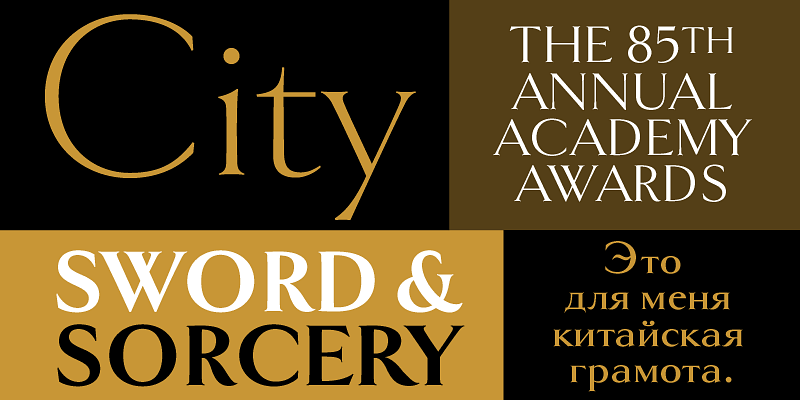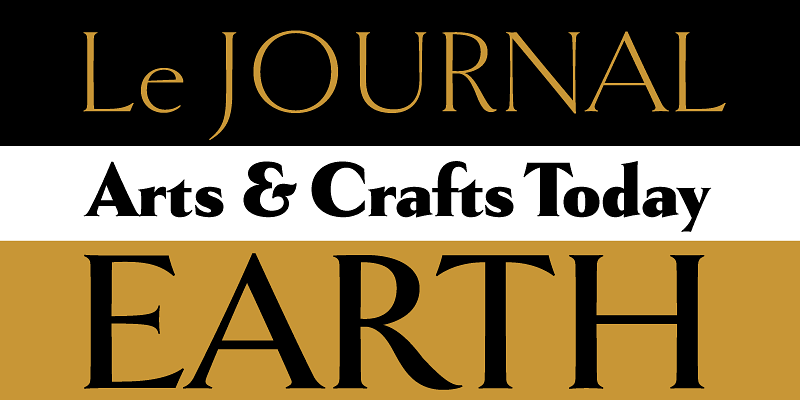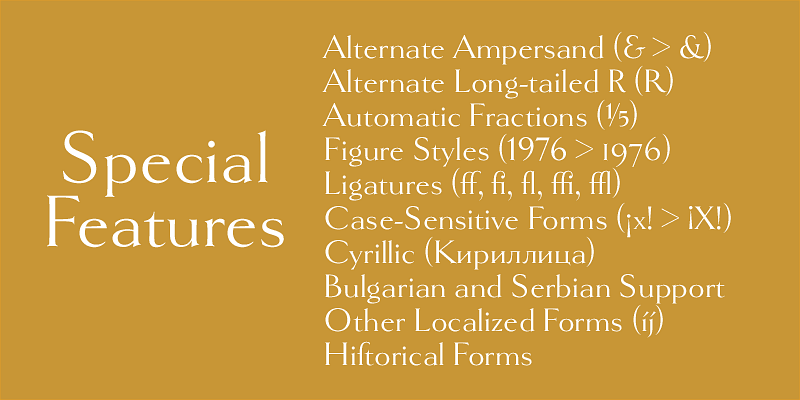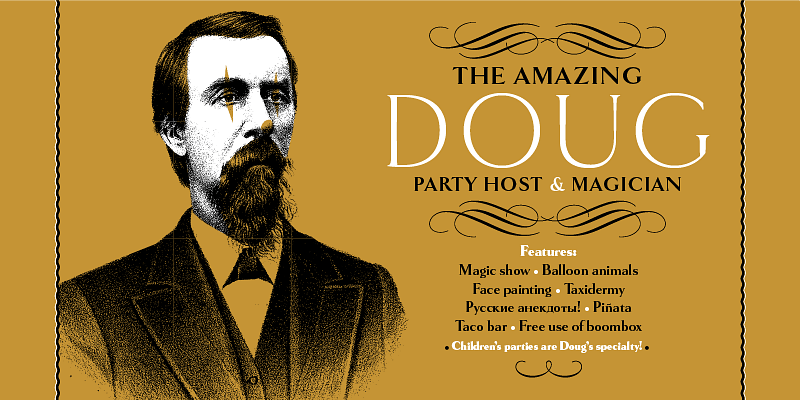
Goldenbook (2003) is based on the logotype of a literary magazine from the late 1920s called, The Golden Book Magazine. It’s an art deco take on the classic Roman letterforms, kind of an art deco Trajan, but with lowercase. There were only the letters in the logotype to work from, so I used my imagination for the rest. I tried to be true to the period, as if it had been a an actual font, and not the work of a lettering artist. With its fine features, it is best used large. I don’t know if it’s because of the name, but I see it used often on book covers.